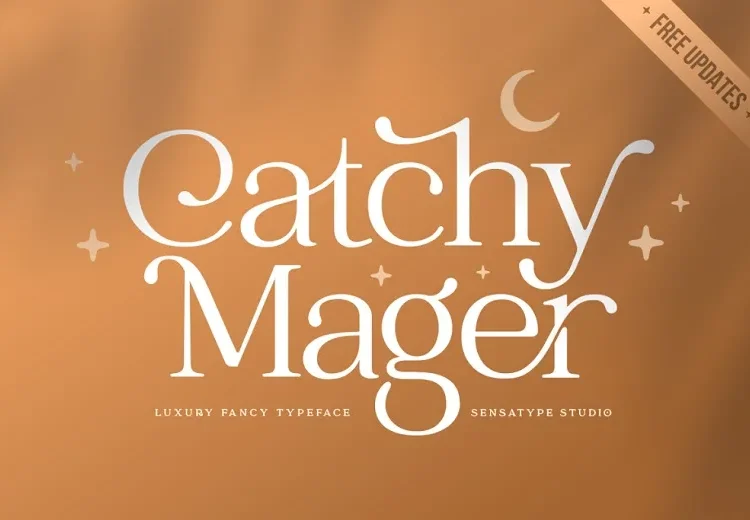
Catchy Mager Font
Catchy Mager is a luxury serif font that showcases soft, flowing letter shapes with delicate curves, making it an exquisite choice for a variety of design projects. As a graphic designer frequently tasked with creating elegant designs for numerous companies, this font was thoughtfully crafted to embody a sense of sophistication and style. The unique combination of its graceful lines and refined appearance elevates any project, ensuring it stands out.
Ideal for branding and logo design, Catchy Mager font offers a stylish and beautiful aesthetic that is both modern and timeless. Its elegant form makes it suitable for a range of applications, from high-end branding campaigns to elegant wedding invitations. The font’s distinctive look guarantees that your designs will convey a sense of luxury and creativity, helping you to make a memorable impression.
With its versatility, Catchy Mager adapts seamlessly to different mediums, whether in print or digital formats. Its clarity and elegance ensure that your messages are communicated effectively while maintaining a visually appealing presentation. This font is perfect for designers seeking to add a touch of class and uniqueness to their work.